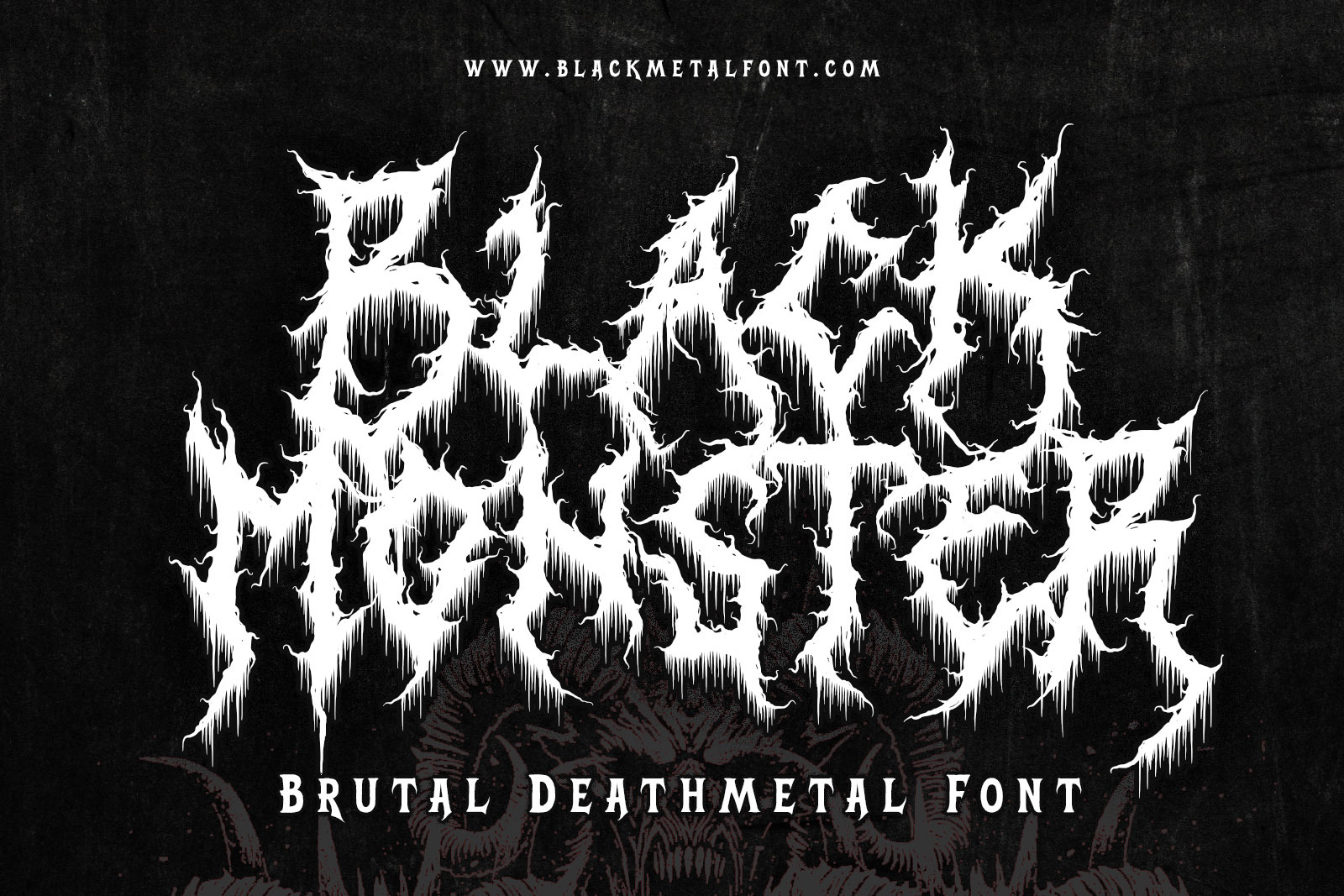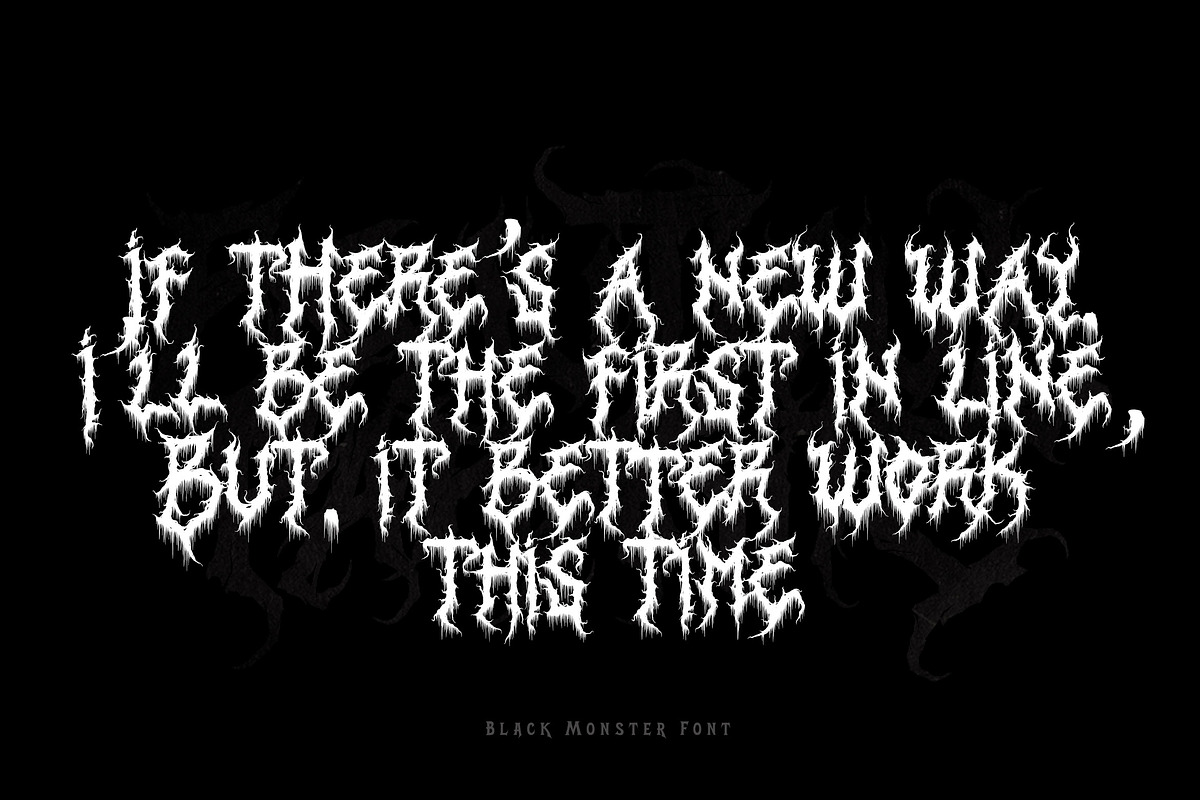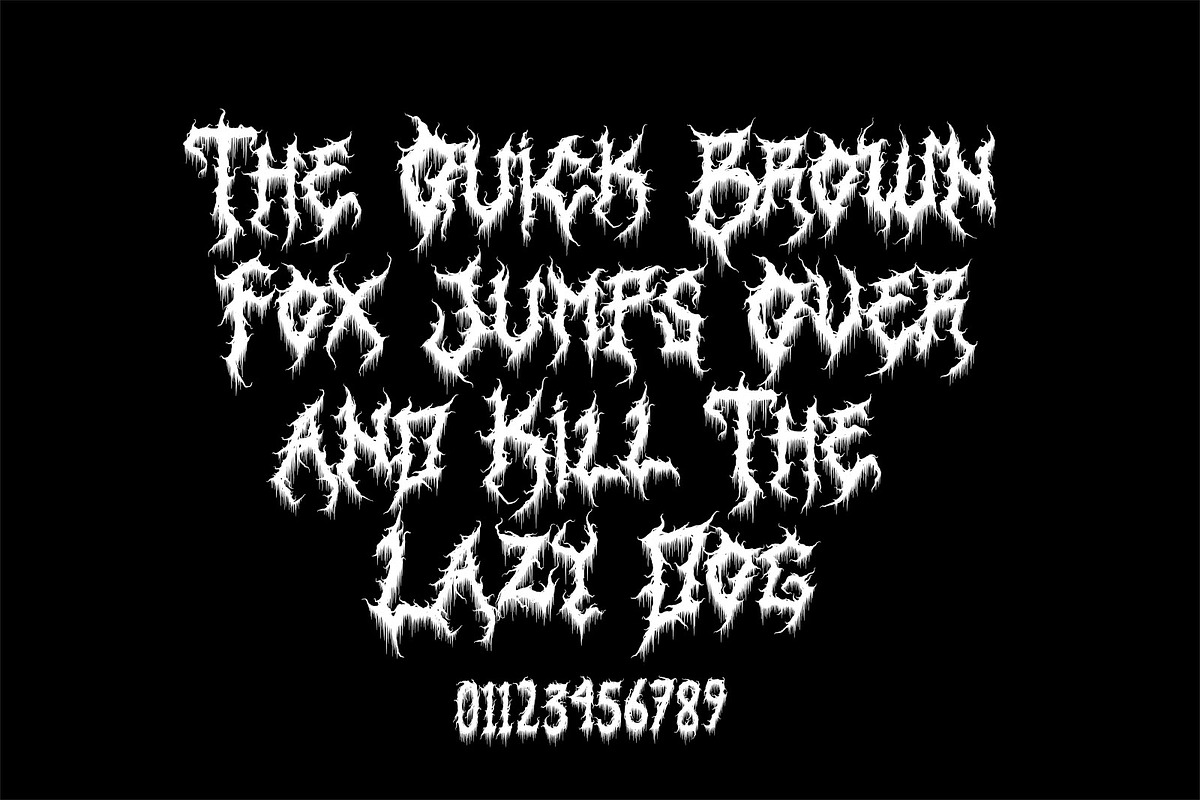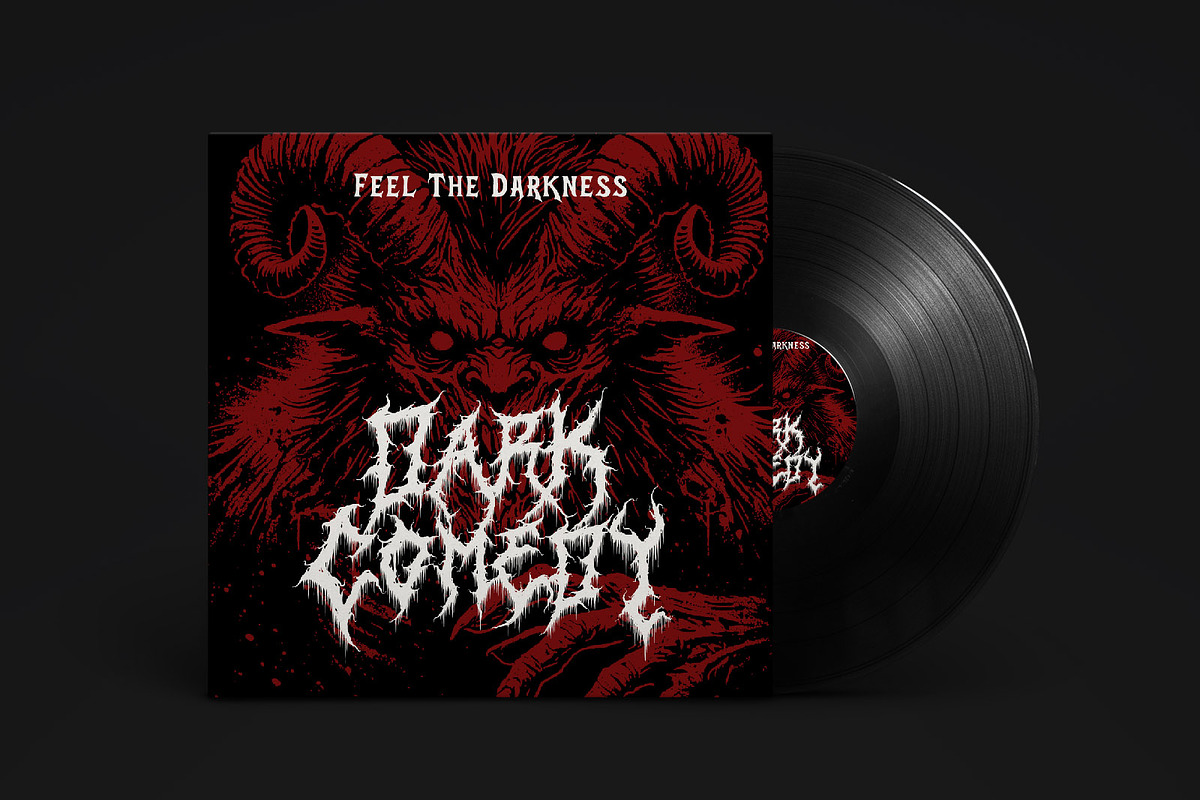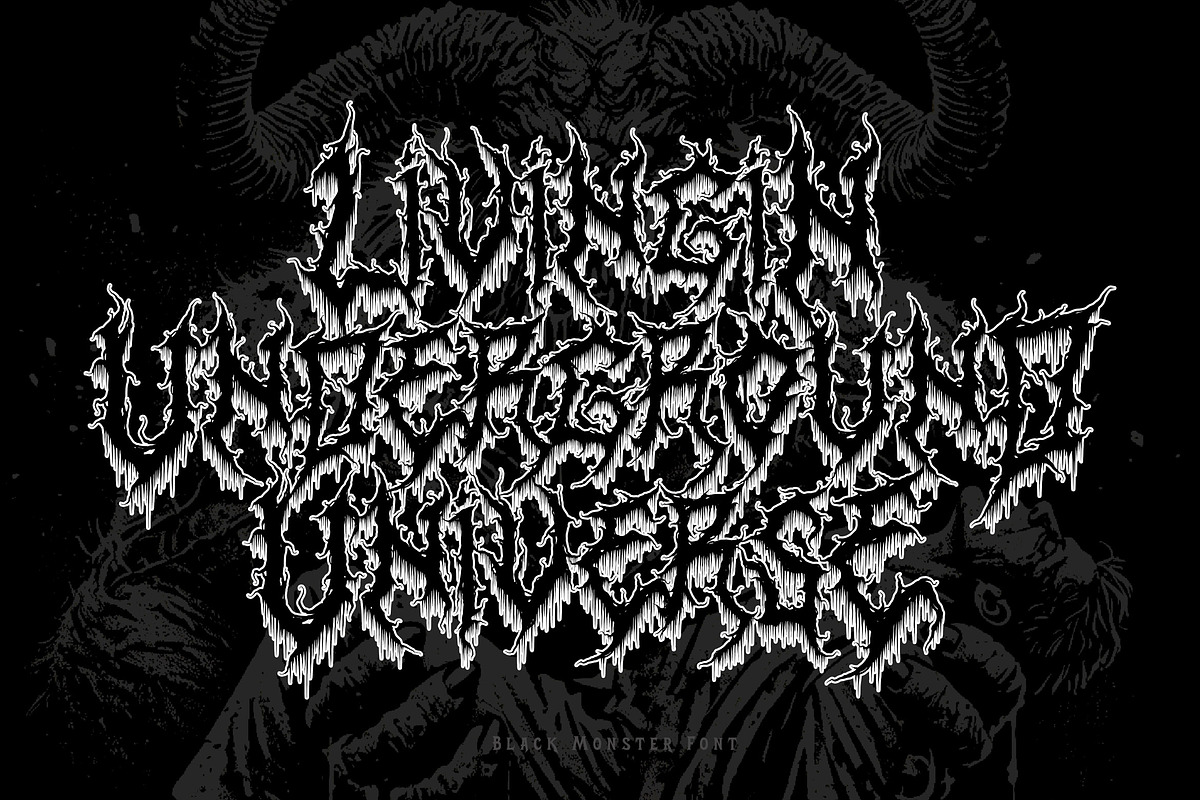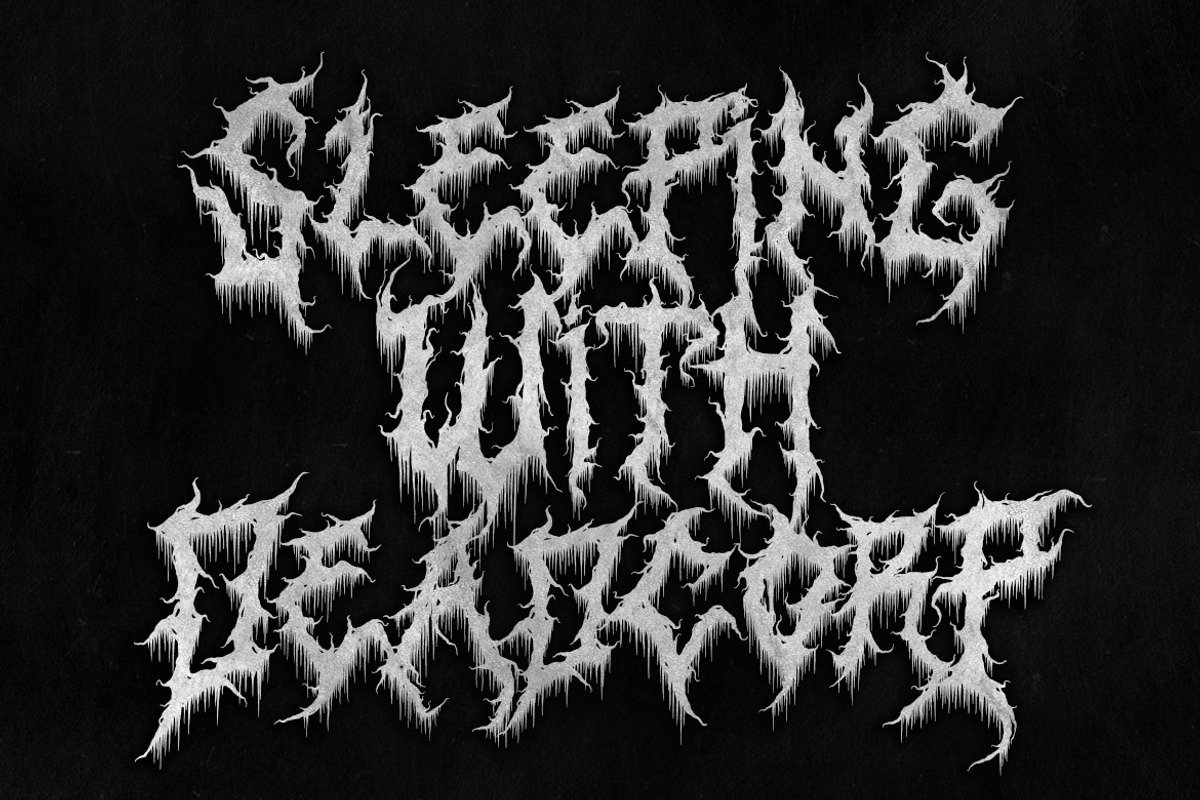
Black Monster Black Metal Font
Introducing Black Monster Font: The Ultimate Black Metal Typeface
Unleash the darkness with Black Monster Font, the latest addition to our collection of brutal deathmetal fonts. Designed with the raw energy and grim aesthetics of black metal in mind, this font is perfect for creating logos, music album covers, Spotify thumbnails, and merchandise that demand a powerful and sinister presence.
Brutal Design: Each letter drips with the essence of black metal, featuring jagged edges and torn elements that embody the raw intensity of the genre. Versatile Use: Ideal for band logos, album covers, posters, merchandise, and social media graphics, ensuring your brand stands out in the darkest of crowds. High Quality: Meticulously crafted to provide the highest quality, ensuring your designs look sharp and professional in any medium. Distinctive Aesthetics: Perfect for black metal enthusiasts, horror-inspired art, and anyone looking to add a gritty, otherworldly touch to their projects.
Transform your creative vision into a masterpiece with Black Monster Font. Whether you’re designing for a band, creating a striking album cover, or crafting unique merchandise, this font will elevate your work to new, darker heights.